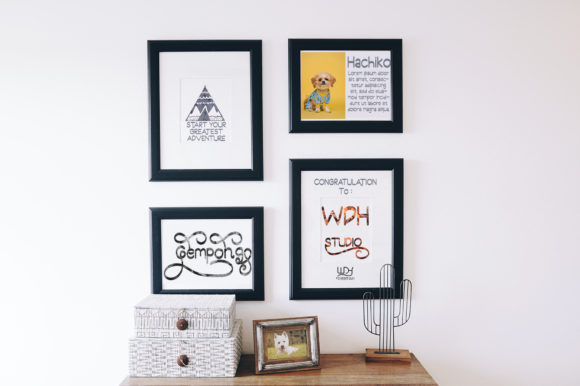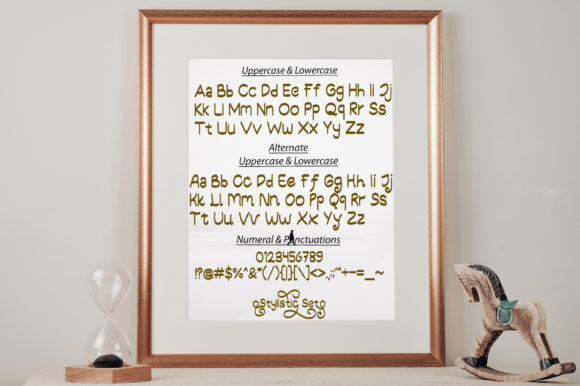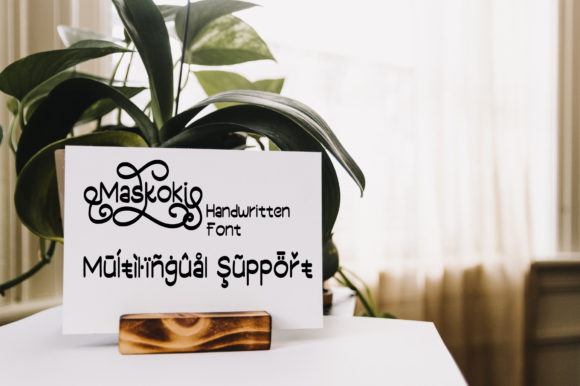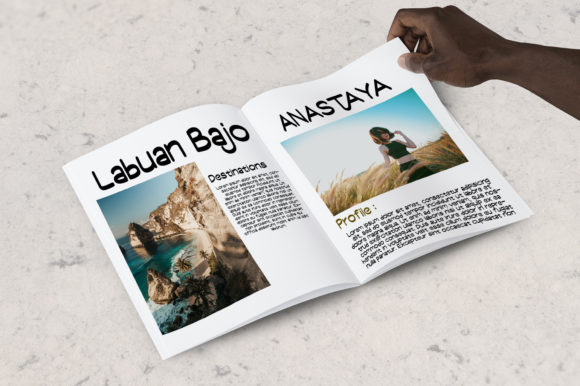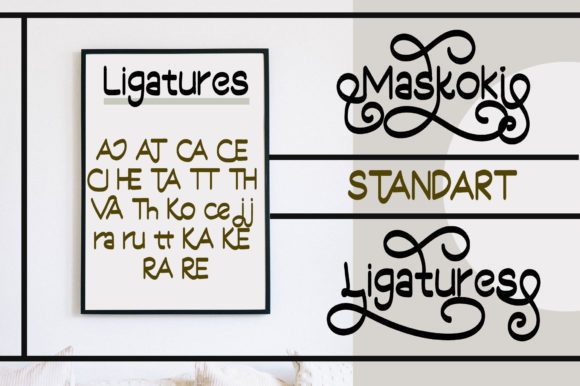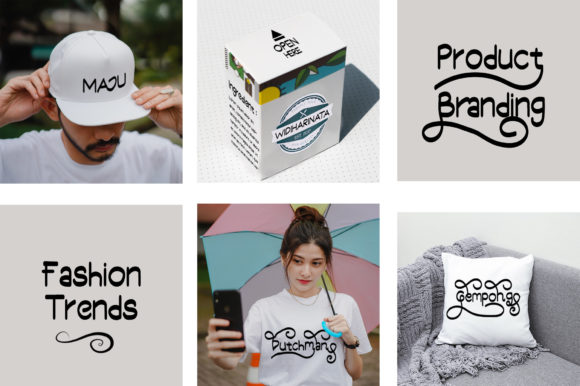
Introduction to Maskoki Font
Have you ever found yourself stuck in front of a blank canvas, searching for the perfect font to bring your creative project to life? For designers, this is a moment we’ve all been there. The pressure to create something unique and captivating can be overwhelming. But what if I told you that there’s a font that can change the game?
Enter the stunning Maskoki Font, a beautiful and refined script font that exudes elegance and sophistication. With its classy, modern look, this font is perfect for logos, branding, invitations, stationery, wedding designs, social media posts, and much more! Whether you’re working on a high-end design project or a simple social media post, Maskoki Font is sure to make a lasting impression.
What makes Maskoki Font truly valuable is its PUA encoded feature, allowing you to access all of the glyphs and swashes with ease. This means you can customize your design with a transparent background, free to download and use in your next creative project. As a valuable design resource, Maskoki Font is a must-have for any designer looking to elevate their work to the next level.
Key Features of Maskoki Font
- High-quality design: This font is designed with precision and care, resulting in a unique and visually appealing aesthetic.
- Transparent background: The font’s transparent background makes it easy to customize and integrate with various design elements.
- Size and resolution: The font comes in various sizes, with a minimum resolution of 300 DPI for high-quality printing and digital use.
- Unique characteristics: The Maskoki Font features a distinctive, hand-drawn style with intricate details, making it an ideal design resource for creative projects.
Honest Review: Maskoki Font
I recently had the opportunity to work with the Maskoki Font, and I must say it’s been a game-changer for my creative projects. This free download has been a design resource I’ve been searching for, and I’m thrilled to share my experience with you.
- ✨ The font is incredibly versatile and has a unique style that adds a touch of elegance to any design. It’s perfect for creating eye-catching headings and titles.
- ✨ The high-quality design ensures that the font looks crisp and clear on both digital and print materials.
- ✨ The transparent background makes it easy to use the font on any color scheme or background.
While the Maskoki Font is a great addition to any design toolset, there are a few limitations to keep in mind:
- ⚠️ The font may not be suitable for use in situations where a bold, attention-grabbing font is needed, as it has a more subtle and elegant style.
- ⚠️ The free version may not include all the features and characters you need for a specific project.
Overall, I’m thoroughly impressed with the Maskoki Font and would highly recommend it to any designer looking for a high-quality, versatile font for their creative projects.
The Maskoki Font is a high-quality design resource perfect for creative projects. It can be downloaded for free, making it an ideal choice for designers and artists on a budget. One of the unique features of this font is its ability to be used on a transparent background, allowing for a seamless integration into any design.
Tips for Getting the Most Out of Maskoki Font
Here are a few tips for getting the most out of the Maskoki Font:
- Experiment with different font sizes and styles to create unique designs.